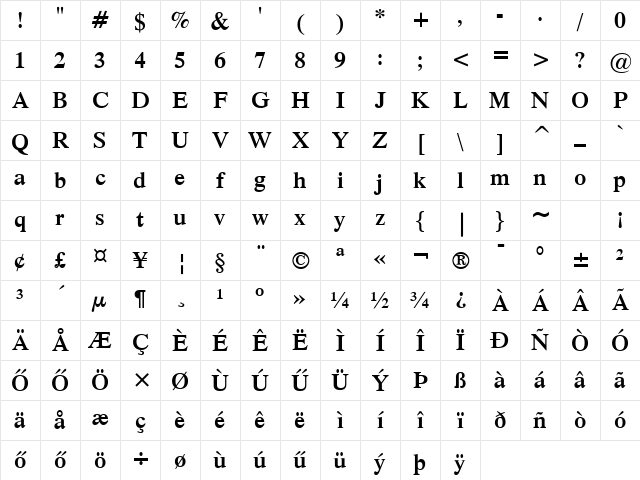
Dutch-801 SmHU Semi-Bold Free Font
Dutch-801 SmHU Semi-Bold
Complete Dutch-801 SmHU Semi-Bold glyph index. Displaying only characters natively supported by Dutch-801 SmHU Semi-Bold font.
Design Context for Dutch-801 SmHU
Dutch-801 SmHU is a composed and adaptable typeface that performs quietly and consistently across a wide range of design contexts. Its bold stroke weight gives it real presence on the page.